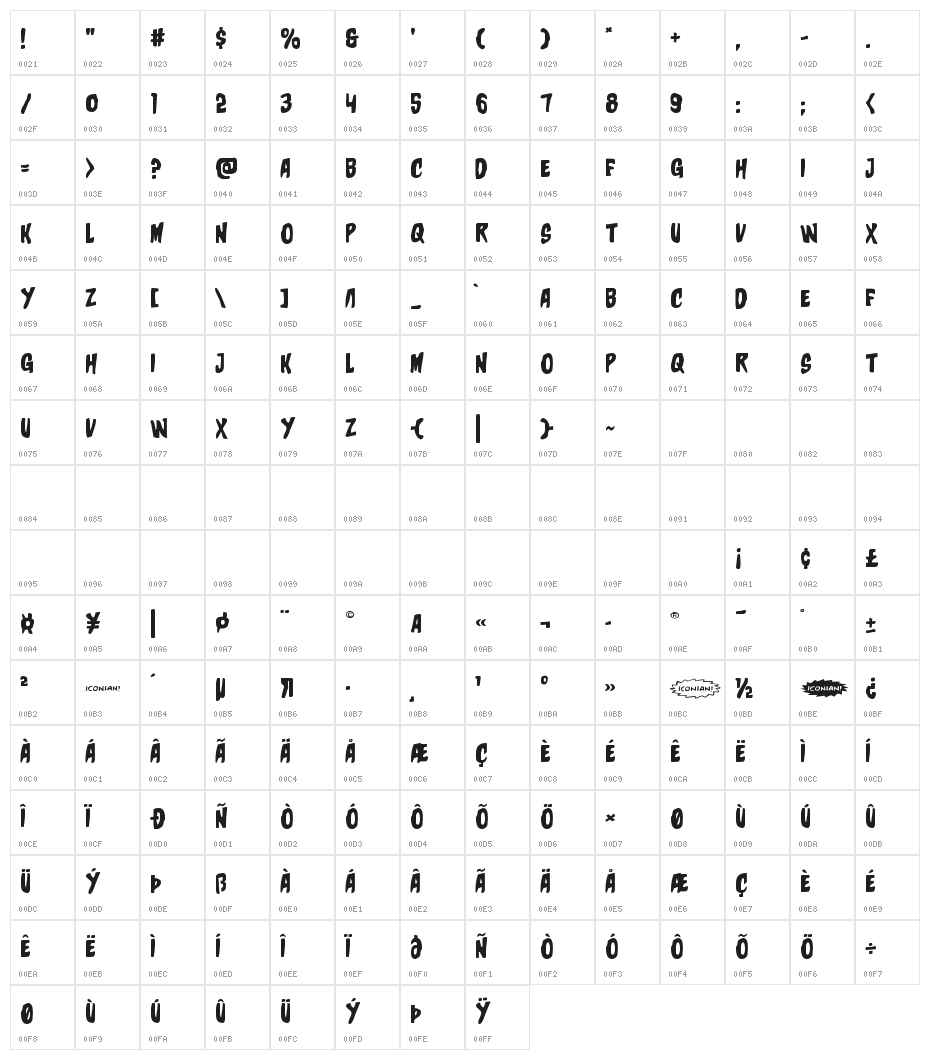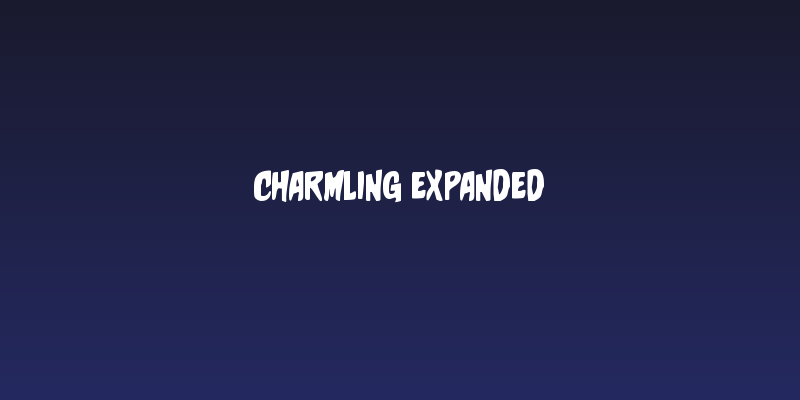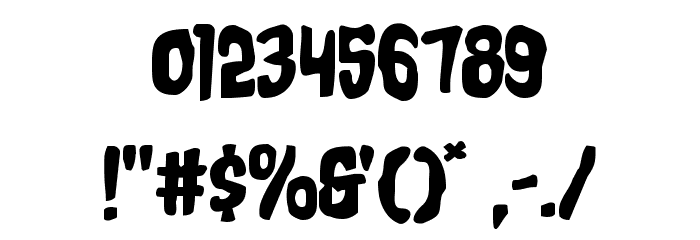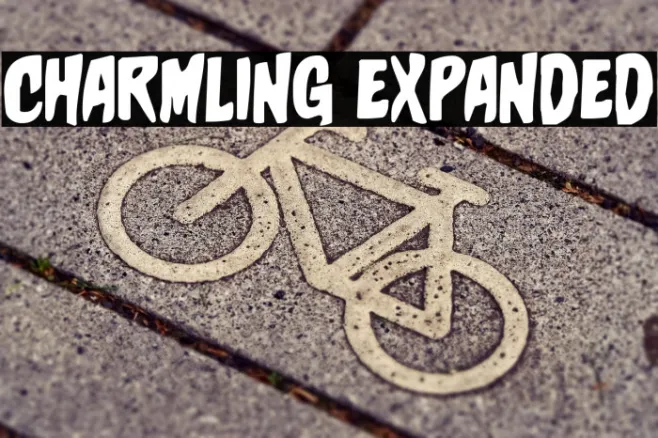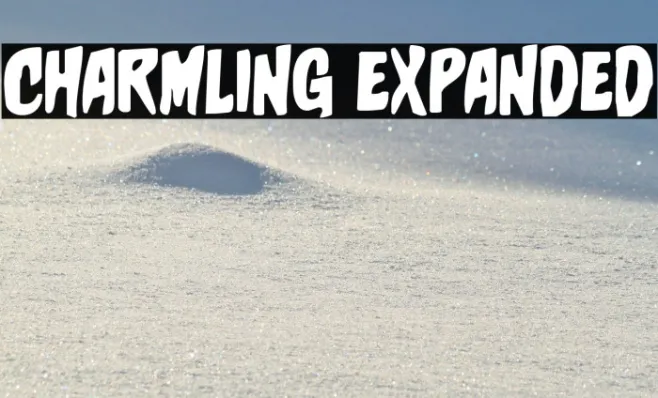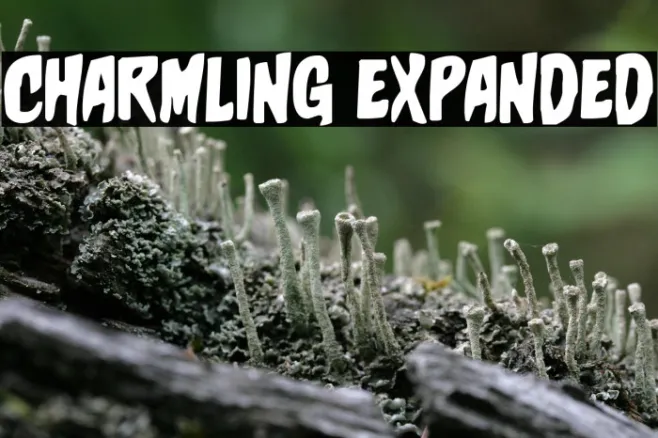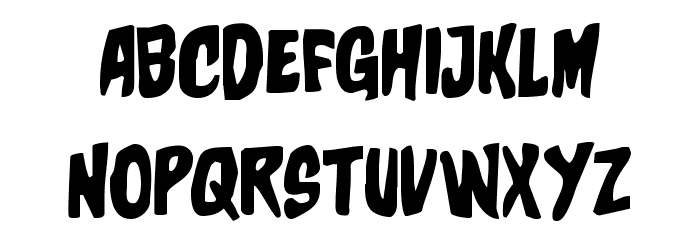
Charmling Expanded Font
Charmling Expanded Description
This font features a bold and playful design with a hand-drawn aesthetic. The characters are thick and slightly irregular, giving them a lively and dynamic appearance. The uppercase and lowercase letters maintain a consistent style, with rounded edges and a slightly exaggerated form that adds to their whimsical charm. The numbers and special characters follow the same design principles, ensuring a cohesive look across all glyphs. This font's unique style makes it stand out, making it suitable for projects that require a fun and engaging visual element.
| Overall Style | Playful, Hand-drawn |
| Proposed Projects | Ideal for children's books, playful branding, posters, and creative invitations. |